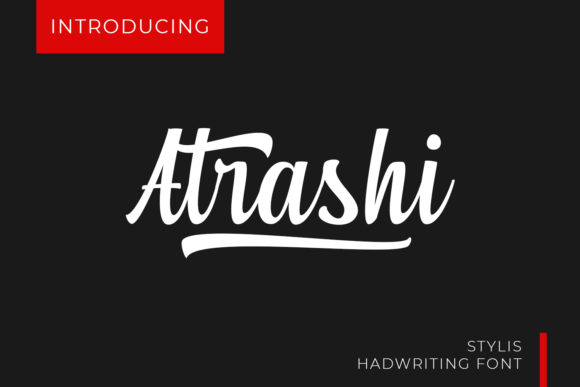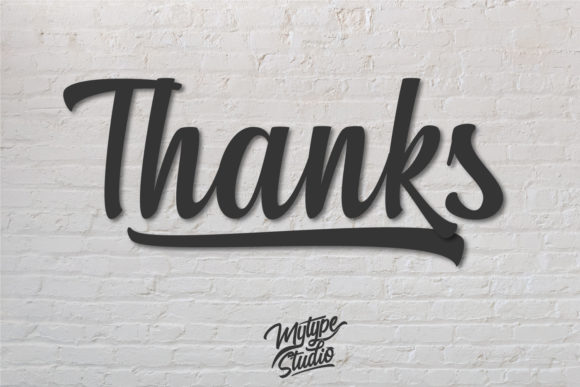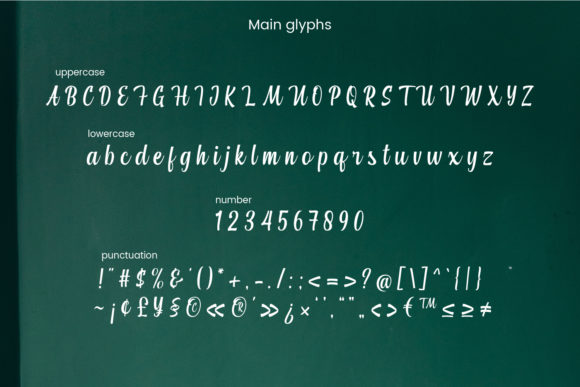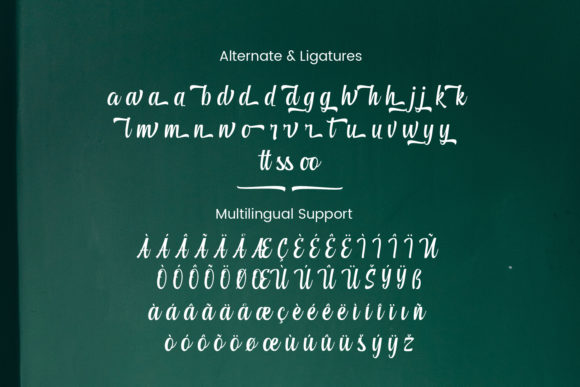
About Atarashi Font
Introducing Atarashi, a modern handwritten font that brings a fresh and contemporary vibe to your designs. With its unique style and versatility, Atarashi is sure to make a statement in any context, whether it’s used on busy backgrounds or as a striking standalone headline.
The clean and crisp lines of Atarashi give it a polished and sophisticated look, making it suitable for a wide range of design projects. Whether you’re creating branding materials, advertising campaigns, social media graphics, or any other type of visual content, Atarashi adds a touch of modernity and elegance.
One of the key features of Atarashi is its versatility. This font is designed to shine in various design contexts, effortlessly adapting to different layouts and compositions. It can hold its own on busy and vibrant backgrounds, ensuring that your text remains legible and visually impactful. At the same time, it can also stand out as a standalone headline, commanding attention and making a bold statement.
With Atarashi’s PUA encoding, accessing all of its glyphs and swashes becomes a breeze. This opens up a world of creative possibilities, allowing you to easily customize and embellish your designs. Whether you want to add flourishes, ligatures, or decorative elements, Atarashi gives you the freedom to unleash your creativity and create truly unique visuals.
The modern and handwritten nature of Atarashi adds a personal and human touch to your designs. It brings warmth and authenticity, making your text feel approachable and relatable. Whether you’re aiming for a friendly and casual vibe or a more polished and professional look, Atarashi strikes the perfect balance, making it suitable for a wide range of design styles.
So, embrace the modernity and versatility of Atarashi in your next design endeavor. Let its clean lines and contemporary charm elevate your visuals and make a lasting impression. Whether you’re designing for print or digital, Atarashi will make your text stand out and leave a memorable impact on your audience.
Step into the world of Atarashi and discover the endless possibilities it offers. Let this modern handwritten font be your creative companion, helping you craft outstanding designs that captivate and inspire.